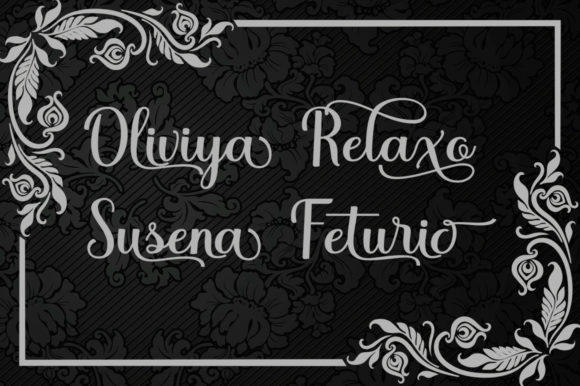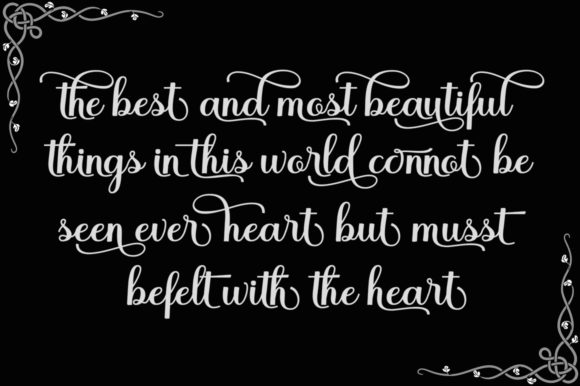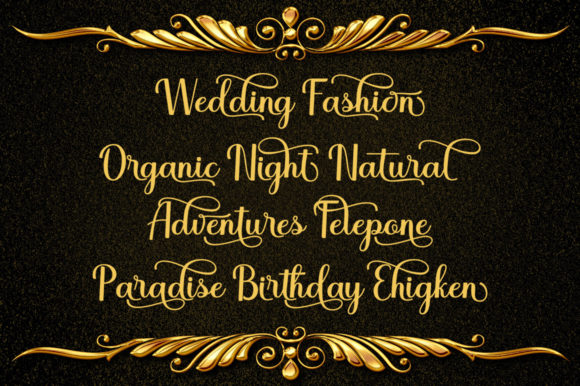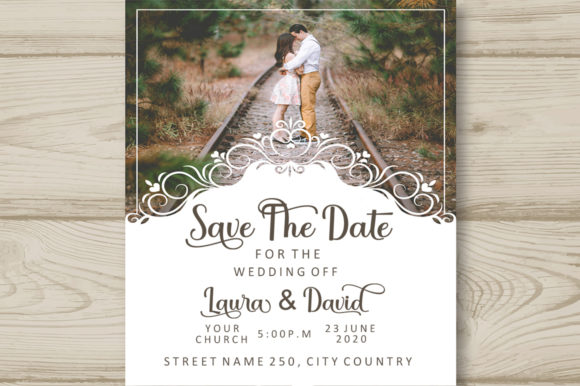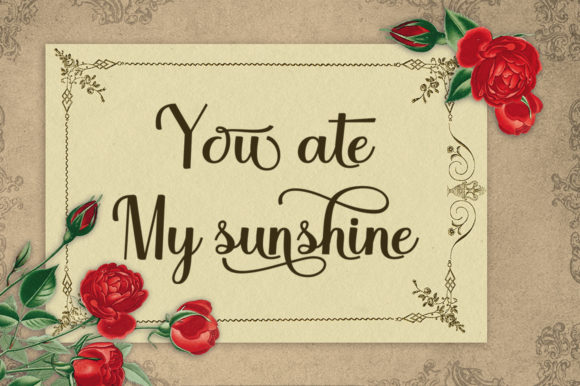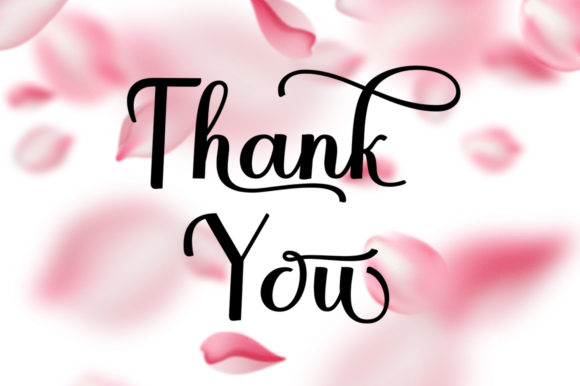
Introducing Brinita Font: Elevate Your Designs with Elegance
Are you a designer or crafter looking for a font that can add a touch of magic to your projects? Look no further than Brinita Font! This beautiful, handwritten font is carefully crafted with elegance in mind, making it the perfect choice for a wide range of design projects.
What is Brinita Font?
Brinita Font is a unique and stylish handwritten font that is designed to bring a touch of sophistication and glamour to your designs. With its flowing lines and delicate curves, Brinita is sure to capture the attention of your audience and leave a lasting impression.
What Makes Brinita Font So Special?
Brinita Font is more than just a font – it’s a design solution that can elevate your projects to the highest level. Here are just a few reasons why Brinita stands out:
- Elegant and Refined: Brinita’s elegant and refined design makes it perfect for high-end branding, luxury packaging, and sophisticated wedding designs.
- Versatile: Brinita is a versatile font that can be used for a wide range of design projects, including headings, invitations, signatures, logos, labels, and more.
- Handwritten with Love: Brinita is a carefully crafted handwritten font, making each letter unique and full of character.
How Can I Use Brinita Font?
Brinita Font is perfect for designers and crafters who want to add a touch of elegance to their projects. Here are some ideas for using Brinita:
- Branding: Use Brinita to create sophisticated brand identities, including logos, business cards, and letterheads.
- Wedding Designs: Add a touch of romance and elegance to your wedding designs, including invitations, save-the-dates, and wedding stationery.
- Signatures and Logos: Use Brinita to create beautiful signatures and logos that will make your brand stand out.
- Labels and Packaging: Add a touch of elegance to your labels and packaging with Brinita’s refined design.
Why Choose Brinita Font?
With so many fonts to choose from, why should you choose Brinita? Here are just a few reasons:
- Unique and Exclusive: Brinita is a unique and exclusive font that will set your designs apart from the rest.
- High-Quality Design: Brinita is a high-quality font that is designed to deliver exceptional results.
| Font Name | Brinita Font |
| Author | Strong.co |
In conclusion, Brinita Font is a magical handwritten font that is carefully crafted with elegance in mind. With its refined design and versatile uses, Brinita is the perfect choice for designers and crafters who want to elevate their projects to the highest level. Whether you’re creating branding, wedding designs, or simply want to add a touch of sophistication to your labels and packaging, Brinita Font is the perfect choice.